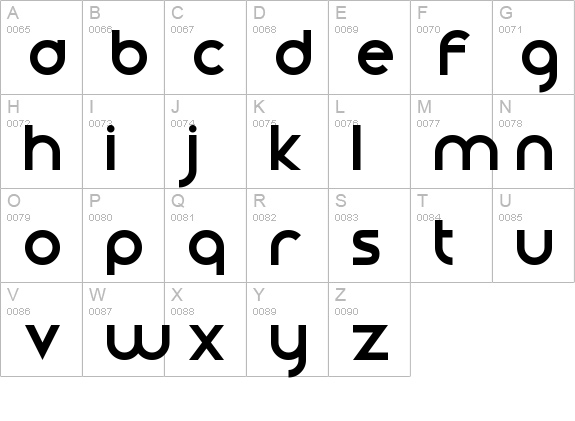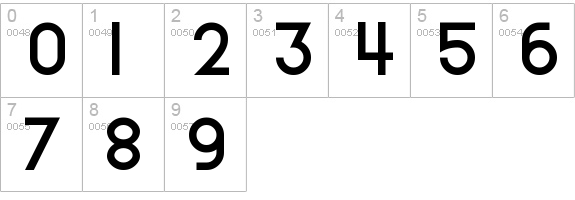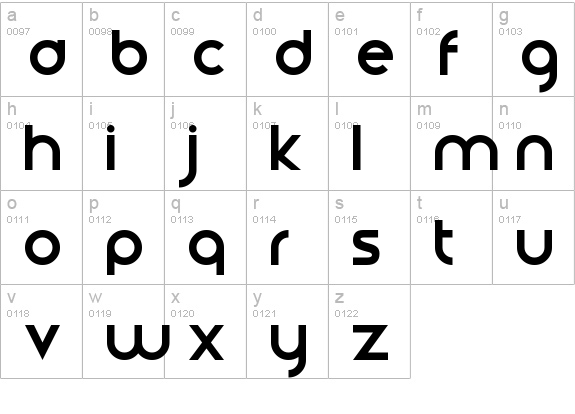
Smooth Circulars is a sleek and modern font that exudes elegance and simplicity. With its smooth lines and perfectly rounded curves, this font is perfect for a wide range of design projects, from logos to invitations to product packaging. Its clean and minimalist look makes it versatile and suitable for both digital and print designs.